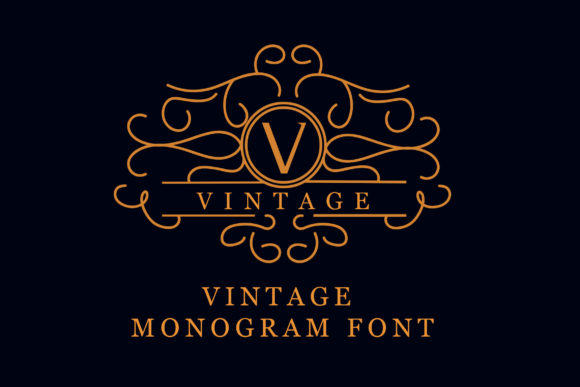
Journey through history with the Vintage Monogram Font, a captivating decorative font that exudes charm and elegance. This remarkable font family effortlessly blends classic sophistication with a modern twist, ensuring your designs stand out from the crowd.
With its bold strokes and intricate details, Vintage Monogram is a true masterpiece. Each letter is carefully crafted to evoke a sense of nostalgia, transporting you to a bygone era of romance and grace. Whether you're creating wedding invitations, thank you cards, or eye-catching logos, this font will add a touch of timeless beauty to your designs.
Step into a world of elegance and grace with Vintage Monogram. Its versatility knows no bounds, making it an ideal choice for a wide range of design projects. Imagine your words dancing across the page, adorned with the allure of a vintage monogram. Your designs will radiate a charm that is both timeless and contemporary, captivating your audience at every turn.
Whether you're a seasoned designer or just starting your creative journey, Vintage Monogram Font is the perfect companion. Its user-friendly nature makes it accessible to all skill levels, allowing you to easily incorporate its beauty into your designs. Unleash your imagination and transform your projects into works of art with minimal effort.
But the beauty of Vintage Monogram Font goes beyond its aesthetic appeal. It is a font that speaks to the heart, evokes emotions, and leaves a lasting impression. With its ability to transform ordinary words into captivating expressions, this font will elevate your designs to new heights.
Experience the transformative power of Vintage Monogram Font today. Embark on a creative journey where elegance meets versatility, where nostalgia intertwines with modernity. Let your designs bloom with the timeless charm of this extraordinary font and captivate your audience with every stroke.